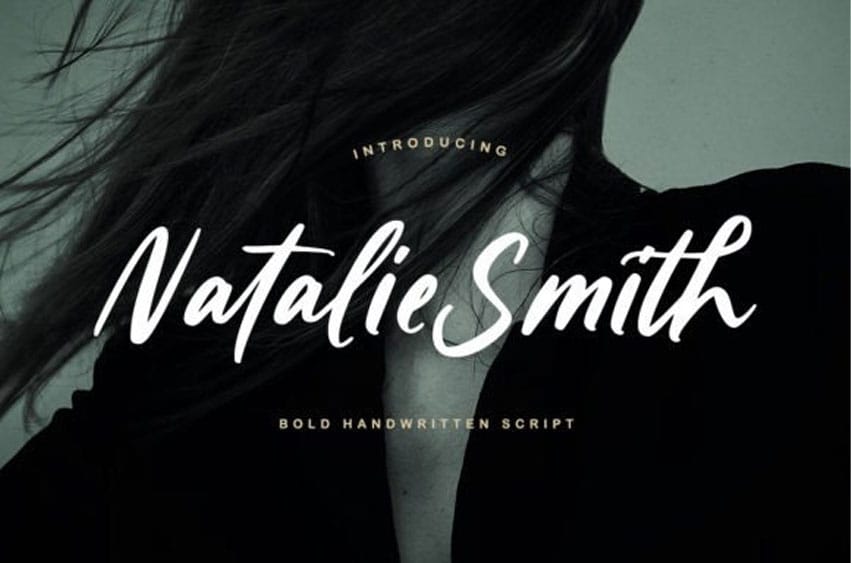
Natalie Smith Font is a charming script font imbued with elegance and grace. Its fluid strokes and delicate curves evoke a sense of sophistication and romance.
Perfect for invitations, branding, and elegant designs, Natalie Smith adds a touch of refinement and charm to any project, captivating audiences with her timeless allure.